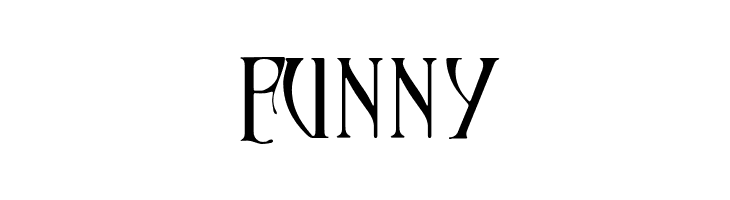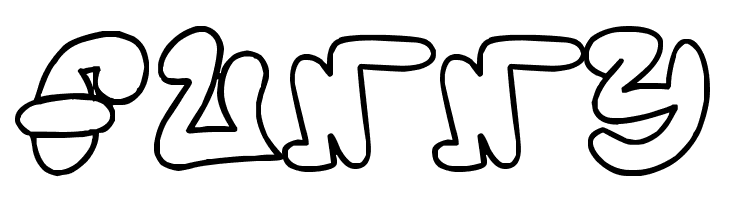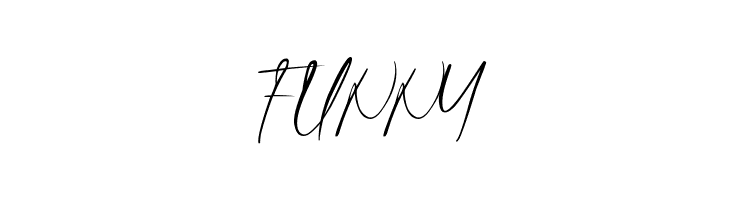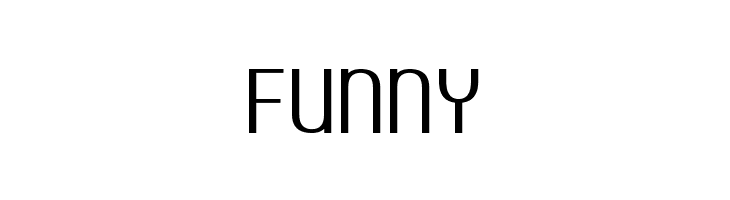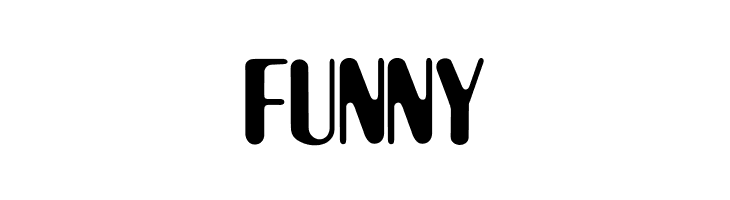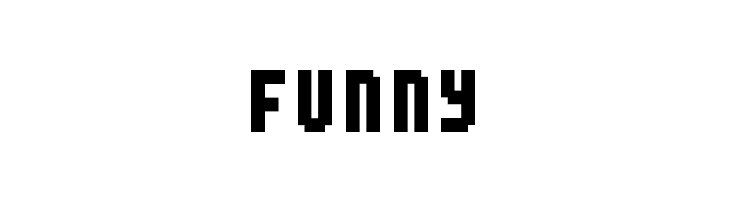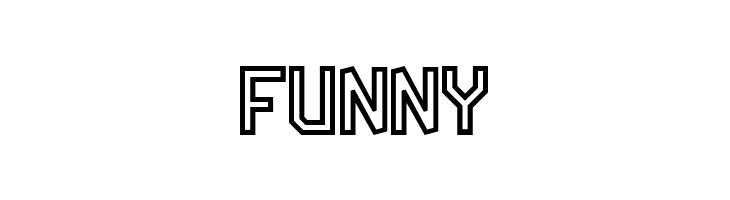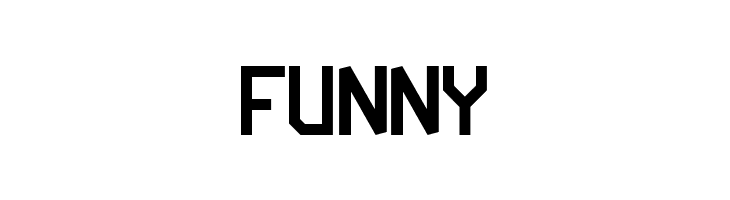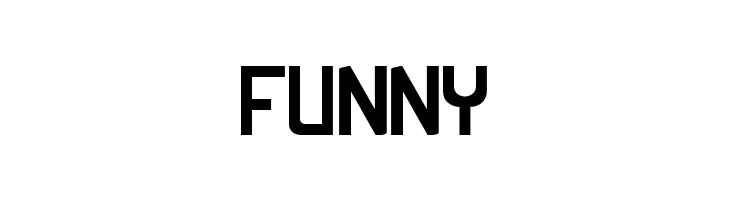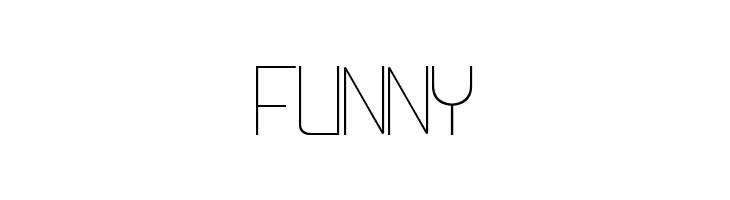
A lively script font with fluid, continuous strokes and a personal touch.
A bold, geometric outline font with a modern, industrial look.
A bold, geometric, and condensed font ideal for impactful headlines.
A modern, geometric font with thin, rounded lines and a minimalist style.
A bold, heavy, and condensed font with rounded edges and a modern, industrial feel.
A lively, cursive handwritten font with expressive, flowing letterforms.
An artistic and elegant font with flowing curves and distinctive embellishments.
An elegant and artistic font with tall, slender letterforms and intricate detailing.
An elegant, decorative font with intricate ligatures and flowing curves.
An elegant outline font with art deco influences and unique character flourishes.
An artistic and decorative font with elongated strokes and intricate details.
A bold, jagged, and decorative font with a rugged, hand-carved appearance.
A modern, elegant script font with graceful curves and unique swashes.
A bold, handwritten-style font with dynamic and expressive characters.
A bold, expressive handwritten font with dynamic strokes and unique character flourishes.
A dynamic, expressive handwritten font with fluid, cursive strokes.
A bold, decorative font with a vintage, three-dimensional style.
A dynamic, handwritten-style font with bold, expressive characters.
A dynamic and expressive handwritten font with bold, fluid strokes.
A bold, graffiti-inspired font with thick, rounded outlines and a playful urban style.
A modern, high-contrast font with elegant, slender forms and decorative elements.
A bold, expressive brush-style font with dynamic strokes and a hand-painted appearance.
Elegant handwritten script font.
A modern, elegant script font with flowing, interconnected characters.
A cursive, handwritten font with elegant, flowing strokes.
A graceful and elegant script font with flowing, cursive letterforms.
A bold, expressive script font with a handwritten style.
A modern, elegant script font with flowing, connected strokes.
A playful, handwritten font with rounded, casual letterforms.